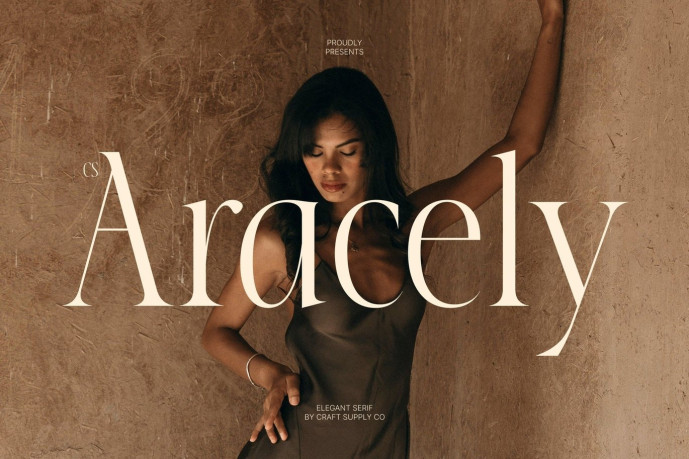
Aracely – Elegant Serif Font
Designer: Craft Supply Co.
CS Aracely – Elegant Serif Font: Where Refined Curves Meet Timeless Luxury Refined Curves with Graceful Elongated Details This is an elegant serif font distinguished by its refined curves and elongated details, creating a sophisticated and luxurious visual identity. Its graceful letterforms combine delicate proportions with carefully crafted serif elements, resulting in typography that feels polished, expressive, and effortlessly elegant. Every character is designed to communicate beauty and professionalism with timeless appeal.
Contemporary Elegance with Classic Inspiration This font offers a balanced aesthetic that feels both timeless and contemporary. Its elongated details introduce a sense of rhythm and elegance, while its clean structure ensures clarity and versatility across a variety of premium design applications.
Luxurious Style with Exceptional Versatility This font delivers a graceful presence that enhances both bold headlines and refined branding. Its elegant curves create a soft, inviting character, while its structured proportions maintain a professional and high-end appearance. Whether used for print or digital media, it adds a sense of exclusivity and artistic refinement to every design.
Perfect for Luxury Design, Editorials, and Magazines Ideal for luxury branding, editorial layouts, fashion magazines, beauty packaging, premium product labels, logos, invitations, hotel and hospitality branding, advertising campaigns, and other high-end creative projects. Its elegant serif forms make it perfect for typography that seeks to communicate sophistication, prestige, and timeless style.